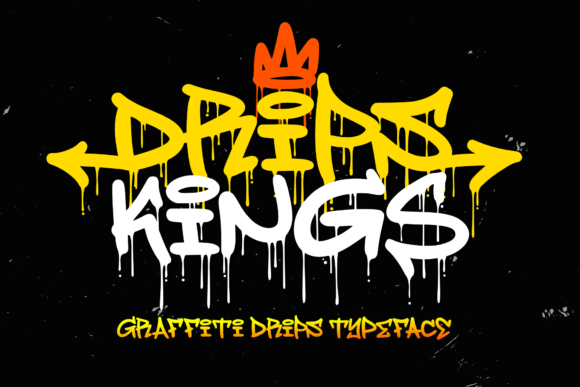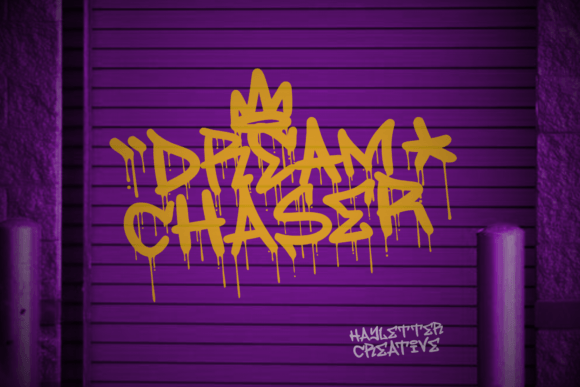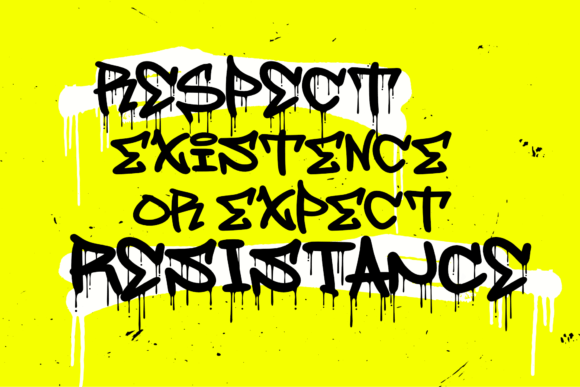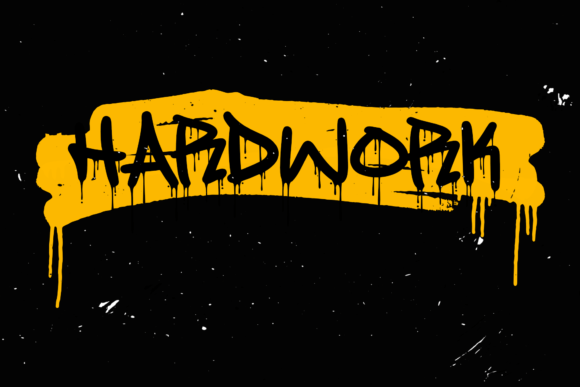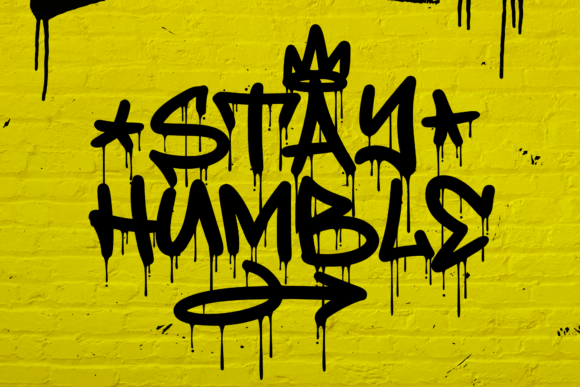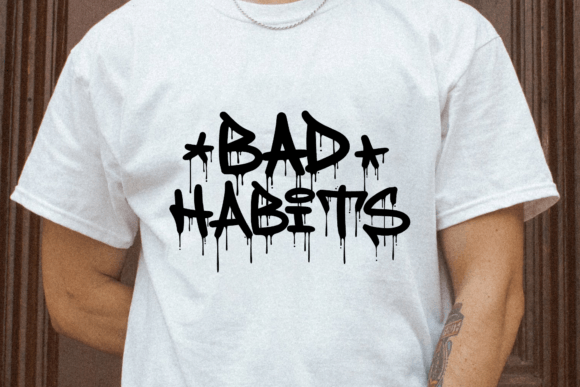
Drips Kings Font
Drips Kings is a cool street-styled display font with dripped style, inspired by graffiti art. No matter the topic, this font will be an incredible asset to your fonts’ library, as it has the potential to elevate any creation.